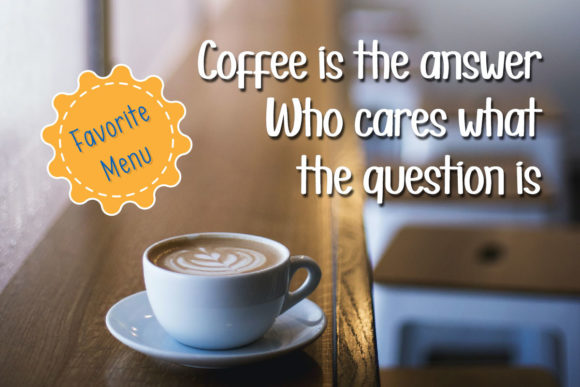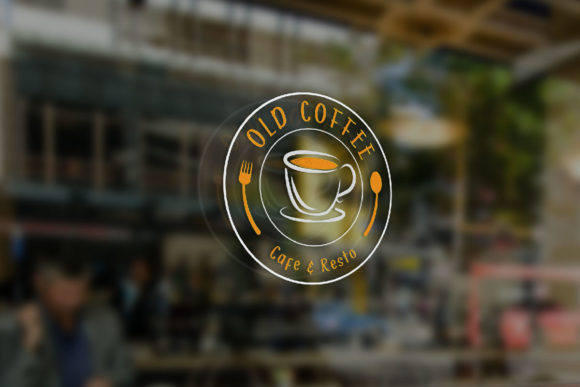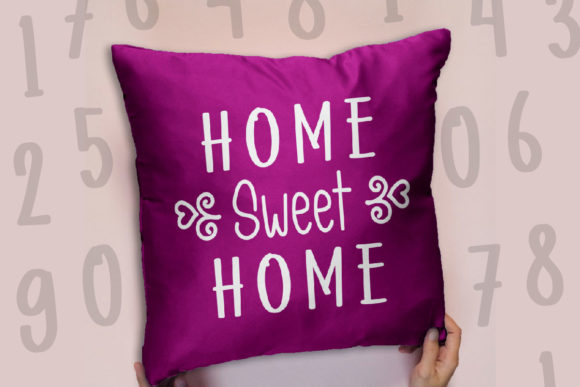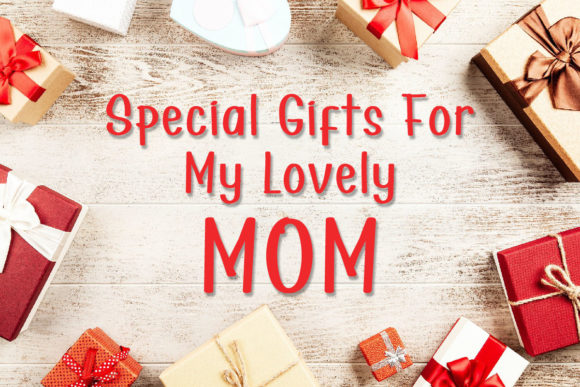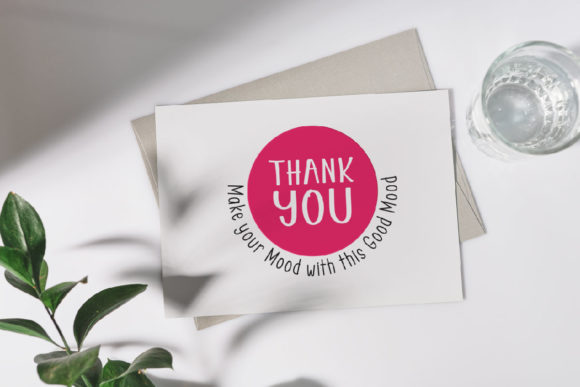
Introducing Good Mood Font: Elevate Your Designs with a Simple yet Versatile Typeface
In the world of design, the right font can make all the difference. It’s not just about conveying a message; it’s about evoking emotions and creating a lasting impression. If you’re a designer or crafter looking for a typeface that can add a touch of personality to your projects, look no further than Good Mood Font. This simple handwritten font is making waves in the design community, and for good reason.
What is Good Mood Font?
Good Mood is a simple handwritten font with multiple styles and a versatile feel. Its minimalistic and neat design makes it suitable for a wide range of projects and crafty ideas. Whether you’re working on a logo, a poster, a website, or any other design project, Good Mood Font is confident to become your go-to choice.
Key Features of Good Mood Font
- Handwritten Style: Good Mood Font boasts a beautiful, handwritten style that adds a personal touch to any design.
- Multiple Styles: With various styles to choose from, you can experiment with different looks to find the one that best suits your project.
- Versatile: Its clean and simple design makes it versatile enough to be used in a variety of contexts, from digital to print.
- Minimalistic and Neat: The font’s minimalistic approach ensures that your message is conveyed clearly and effectively, without any distractions.
Why Choose Good Mood Font?
There are countless fonts available for designers, but Good Mood Font stands out for several reasons:
- Ease of Use: Good Mood Font is incredibly easy to use, even for those who are new to design. Its simplicity ensures that it pairs well with other design elements.
- Emotional Connection: The handwritten style of Good Mood Font creates an emotional connection with the reader, making your designs more relatable and engaging.
- Time-Saving: With Good Mood Font, you can create professional-looking designs in no time. Its versatility means you can use it across multiple projects without needing to switch fonts.
- Perfect for Crafty Ideas: For crafters and DIY enthusiasts, Good Mood Font is a dream come true. It can add a personal and unique touch to handmade cards, journals, and other craft projects.
Good Mood Font is more than just a typeface; it’s a tool that can elevate your designs and craft projects to new heights. Its simplicity, versatility, and emotional appeal make it an excellent choice for designers and crafters alike. Whether you’re looking to add a personal touch to your work or simply want a reliable font that gets the job done, Good Mood Font is an excellent addition to your design arsenal.